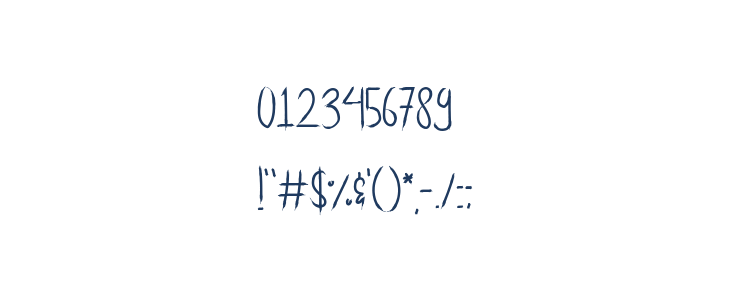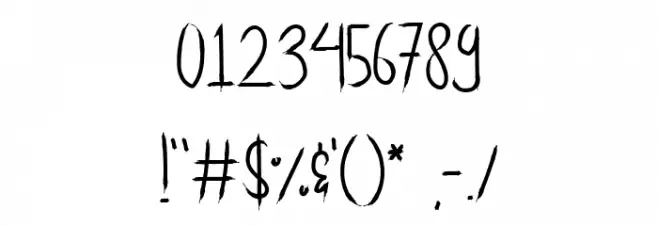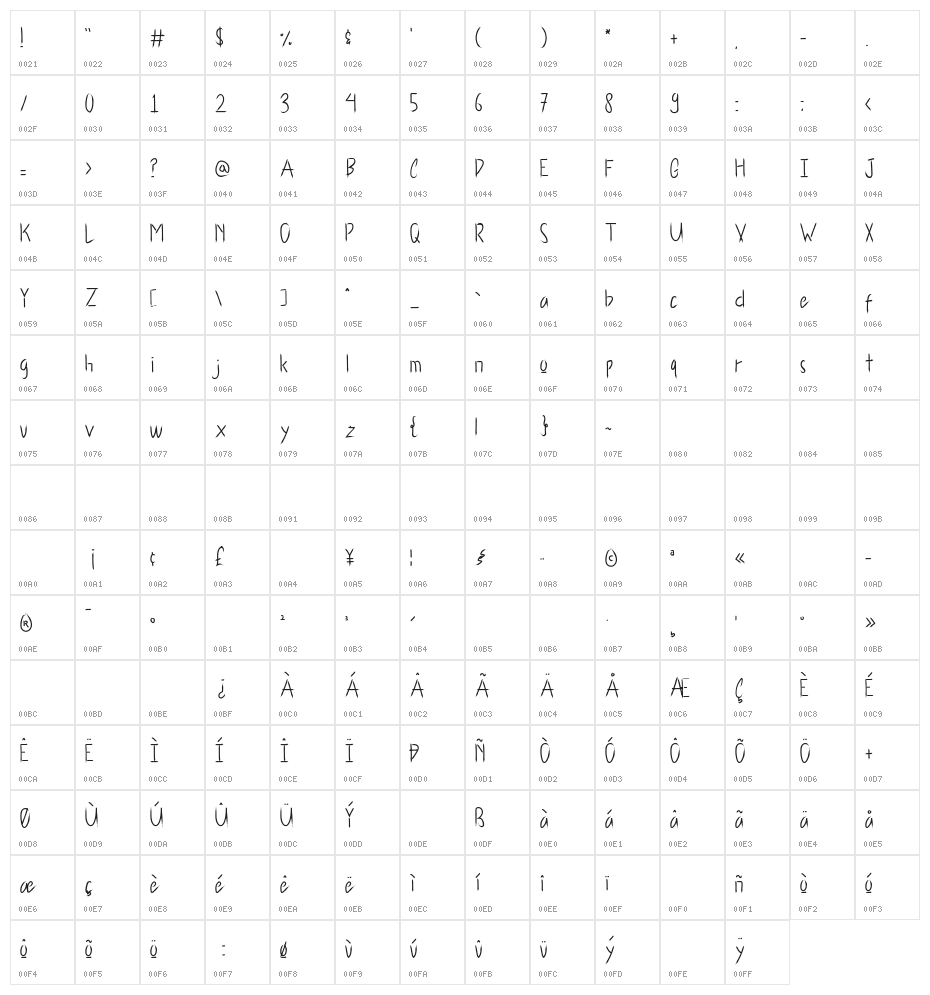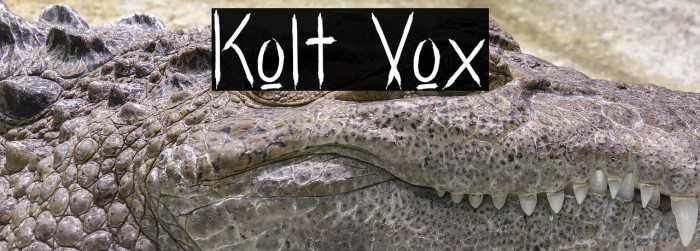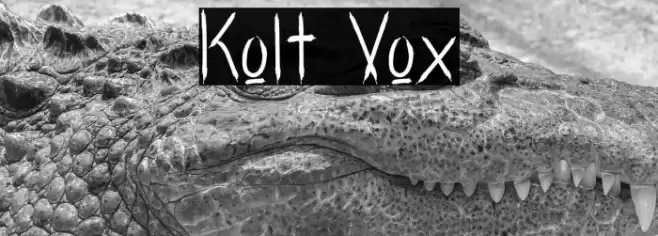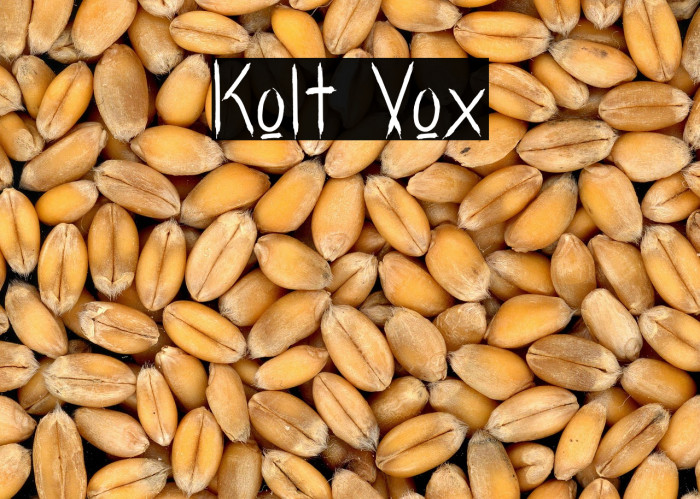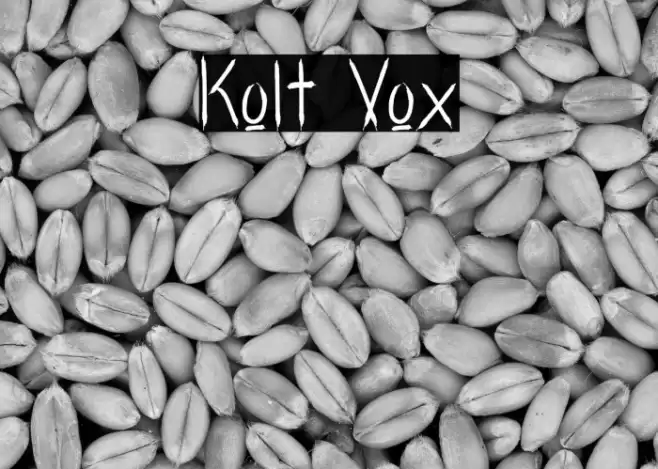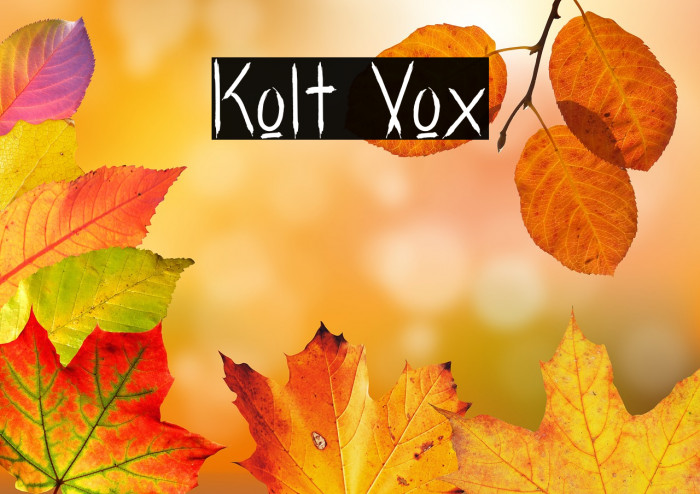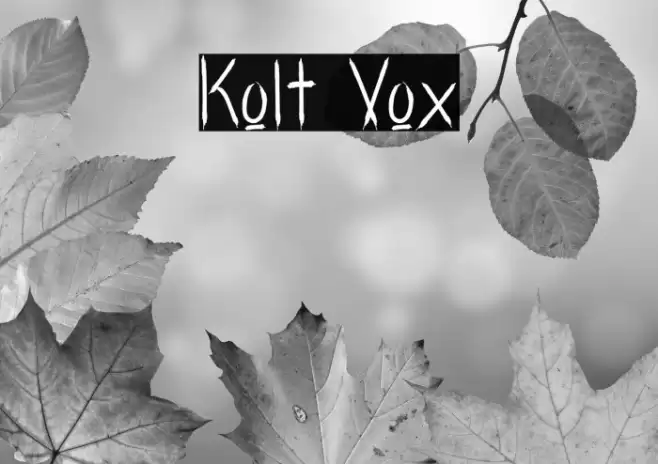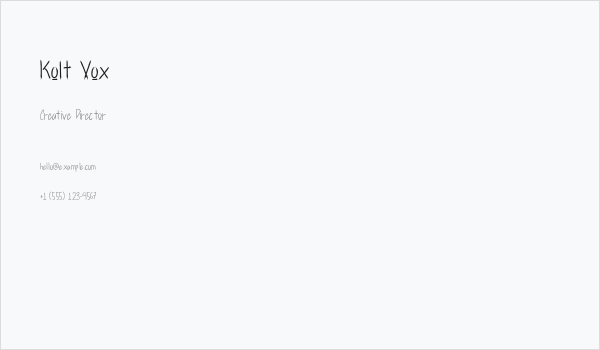
Kolt Vox Font
Kolt Vox Description
This font features a unique, hand-drawn appearance with irregular strokes that give it a dynamic and edgy feel. The characters are slightly elongated with a rough texture, creating a sense of movement and energy. The uppercase and lowercase letters maintain a consistent style, with sharp angles and varying line thicknesses that add to its distinctive look. The numerals and special characters are crafted with the same attention to detail, ensuring a cohesive design throughout. This font is perfect for projects that require a bold and artistic touch, making it ideal for creative branding, posters, and artistic designs.
| Overall Style | Artistic |
| Proposed Projects | Ideal for creative branding, posters, artistic designs, and edgy marketing materials. |